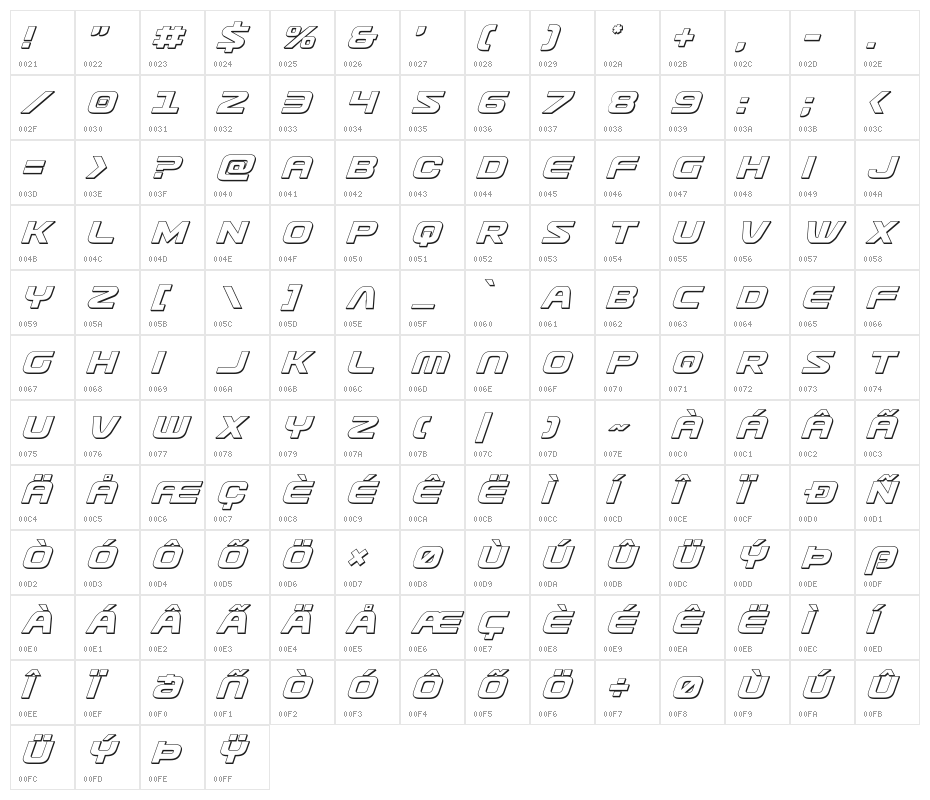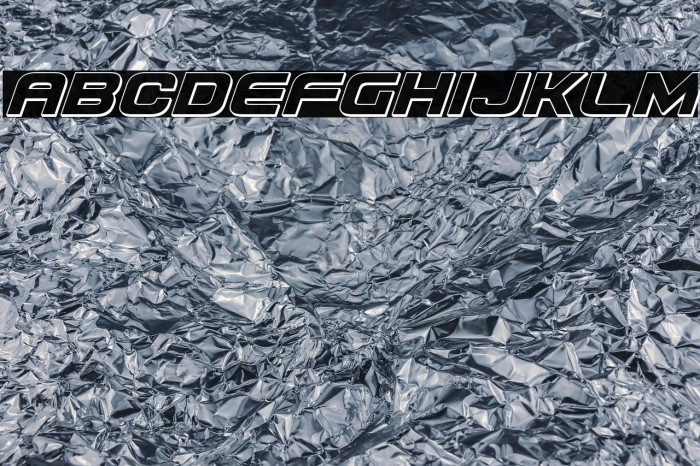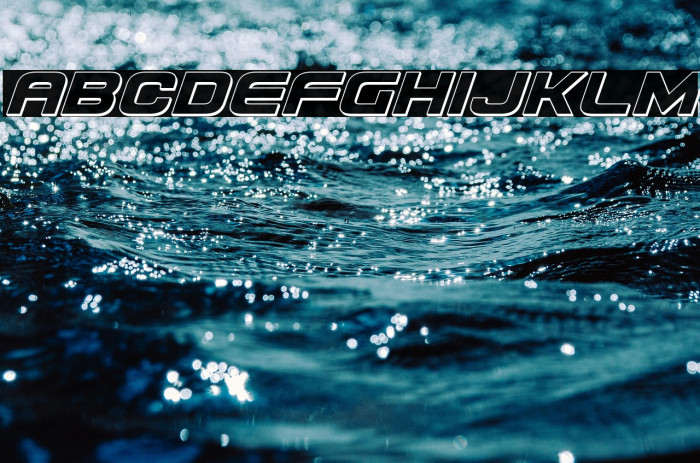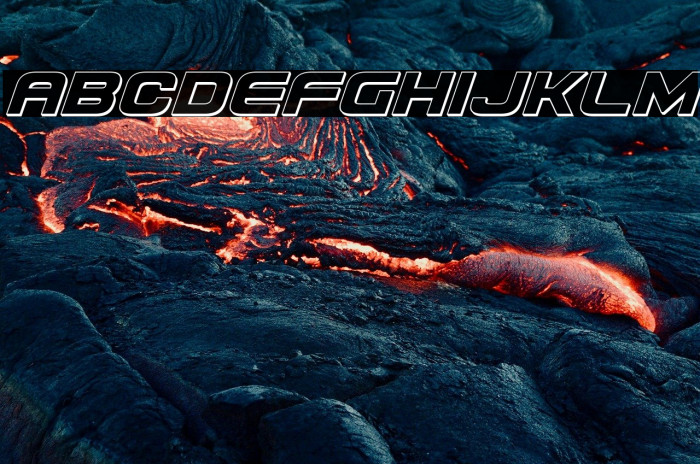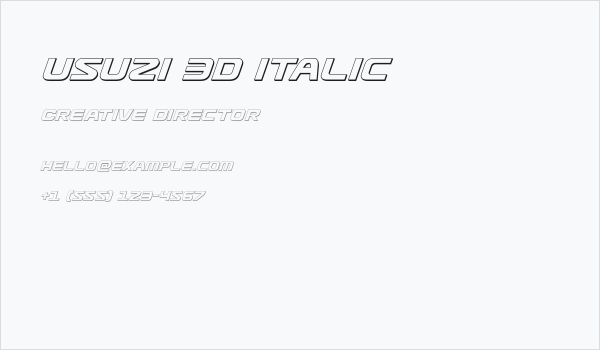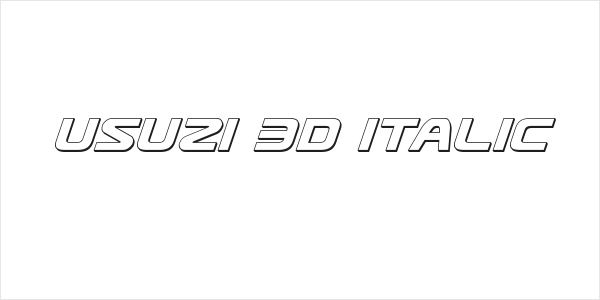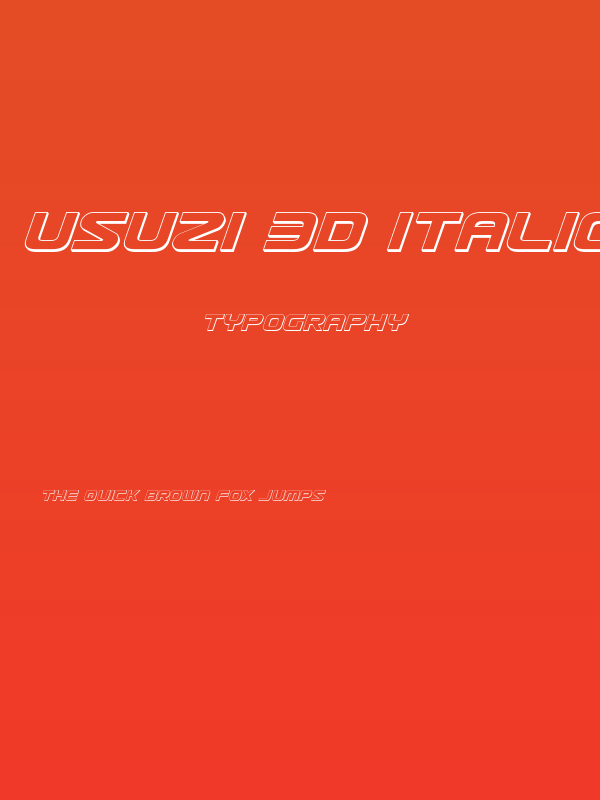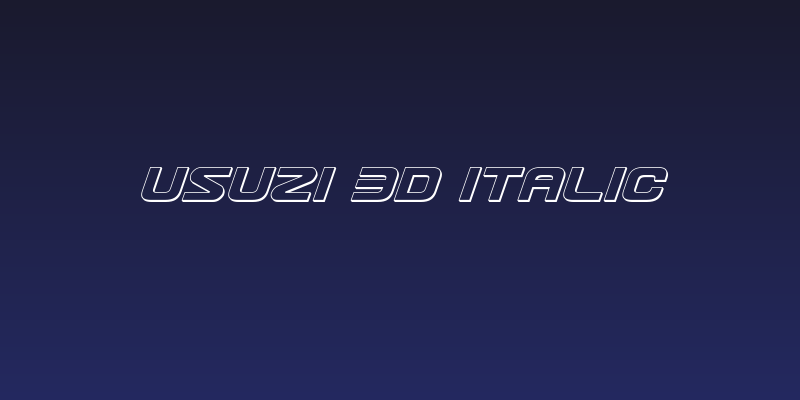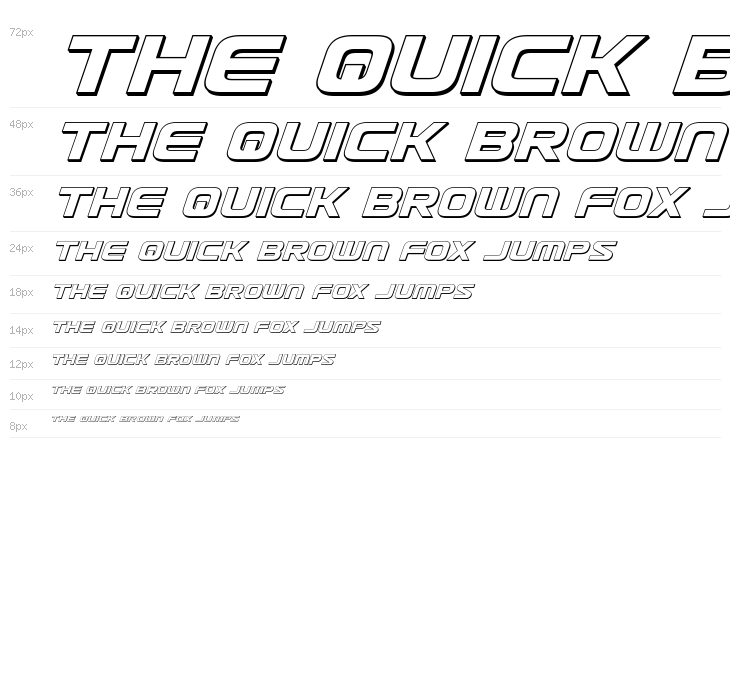
Usuzi 3D Italic Font
Usuzi 3D Italic Description
This font features a bold, three-dimensional appearance with italicized characters, giving it a dynamic and futuristic look. The letters are outlined, creating a sense of depth and movement. The uppercase and lowercase characters maintain a consistent style, with clean lines and geometric shapes. The numerals and special characters are designed to match the overall aesthetic, making this font suitable for projects that require a modern and eye-catching typeface.